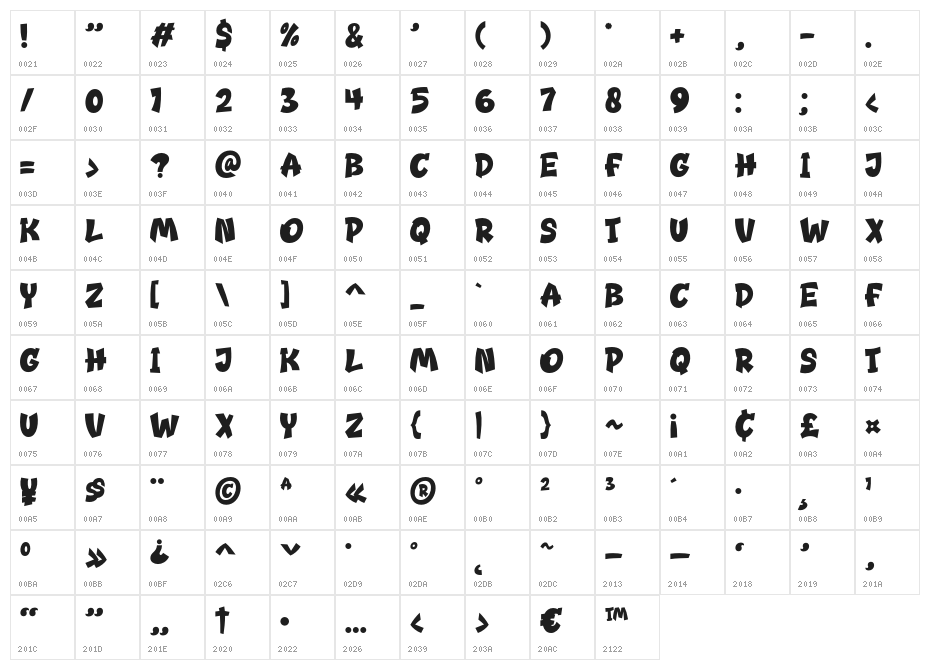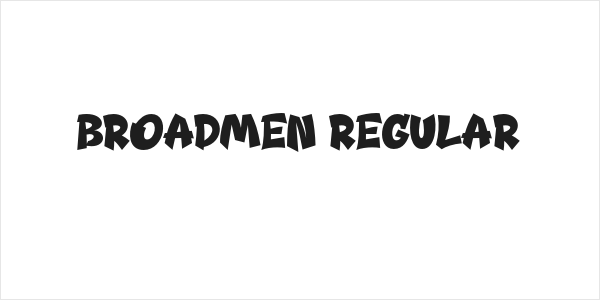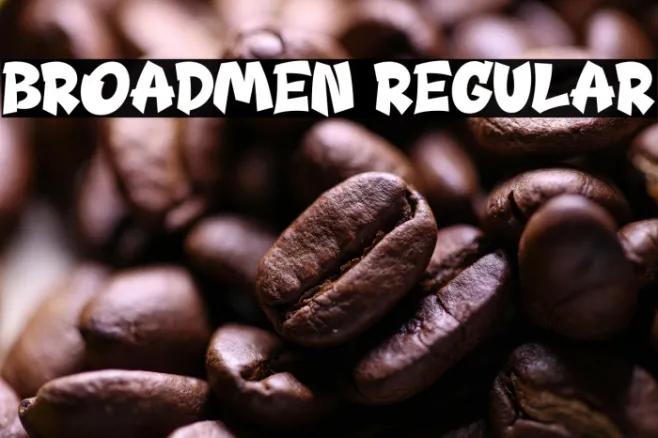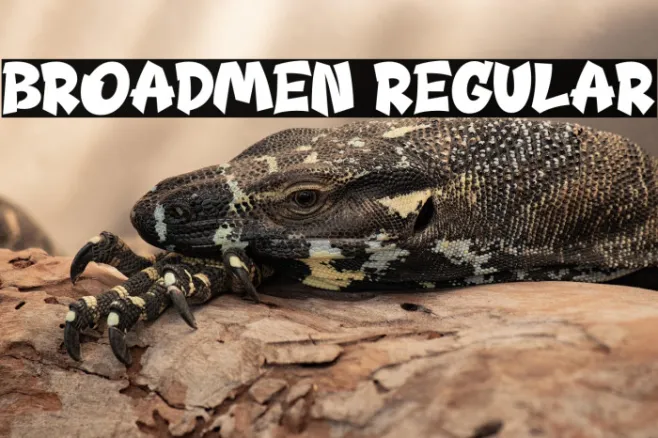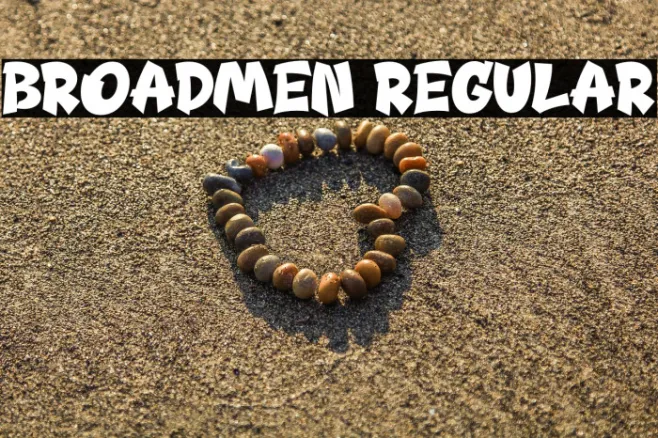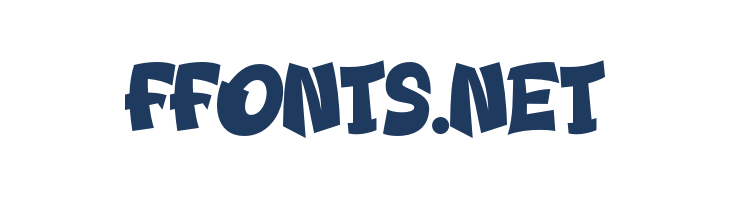
Broadmen Regular Font
Broadmen Regular Description
This font features bold, dynamic characters with a playful and energetic style. The letters are heavily stylized with exaggerated curves and angles, giving them a cartoonish and lively appearance. The strokes are thick and consistent, providing a strong visual impact. The overall design is informal and eye-catching, making it suitable for creative and fun projects. The characters are tightly spaced, enhancing the boldness and making the text appear compact and robust.
| Overall Style | Playful, Energetic, Cartoonish |
| Proposed Projects | Ideal for comic books, children's books, posters, and playful branding. |